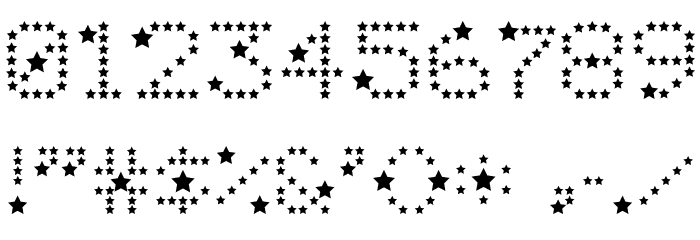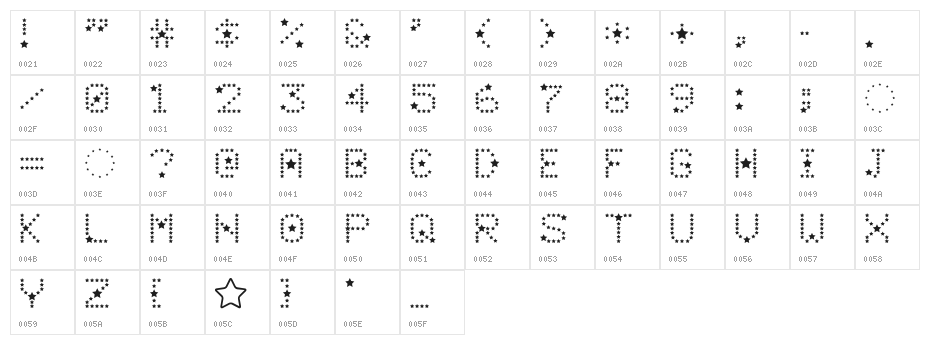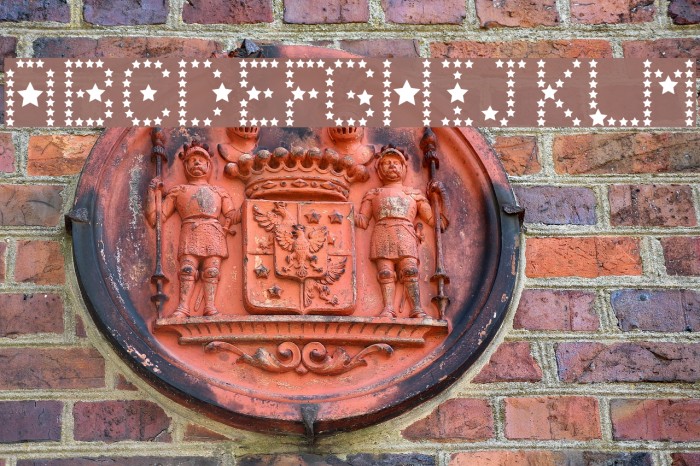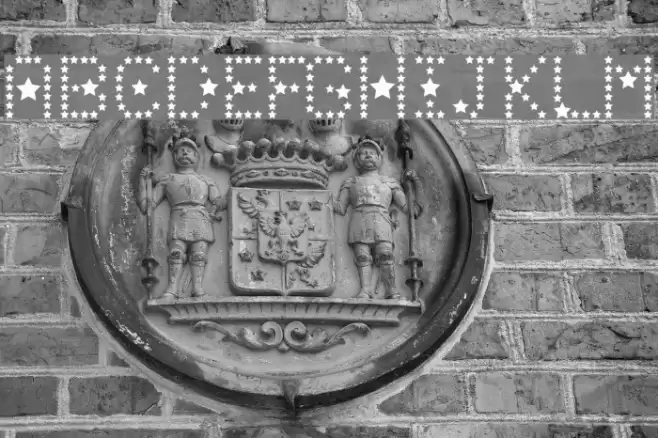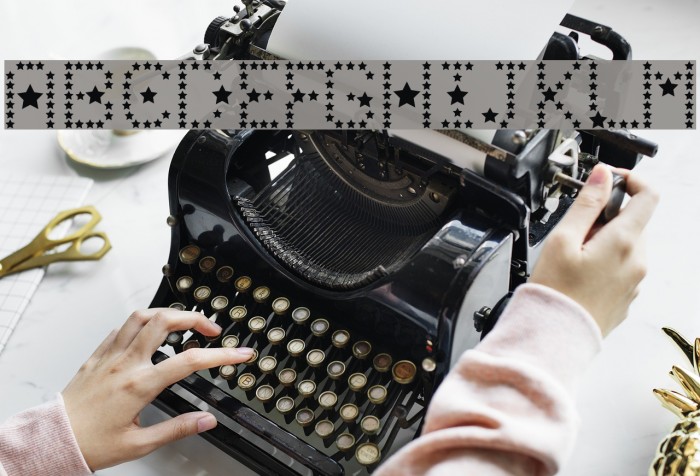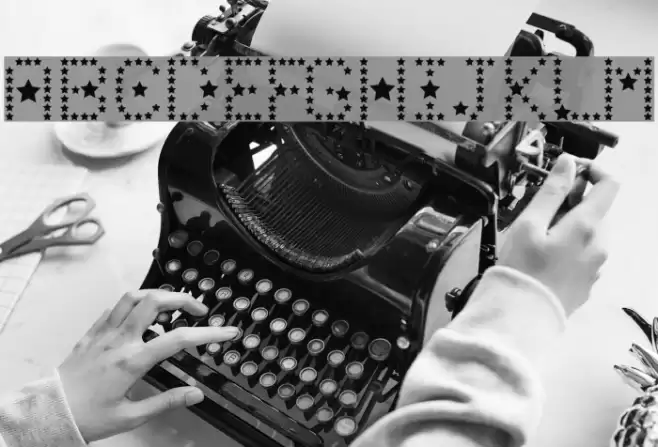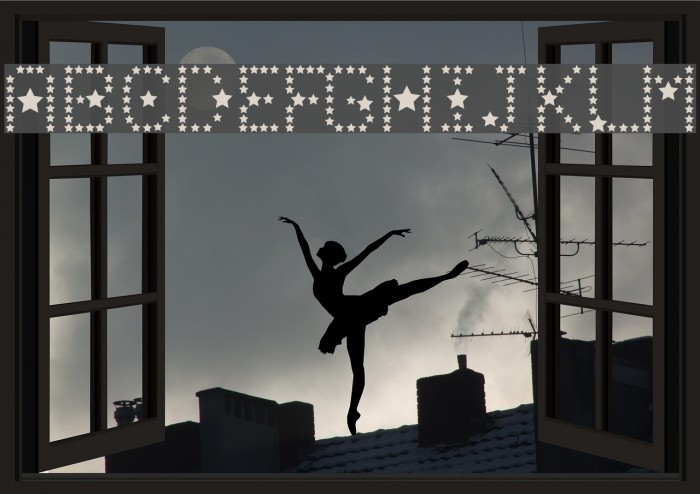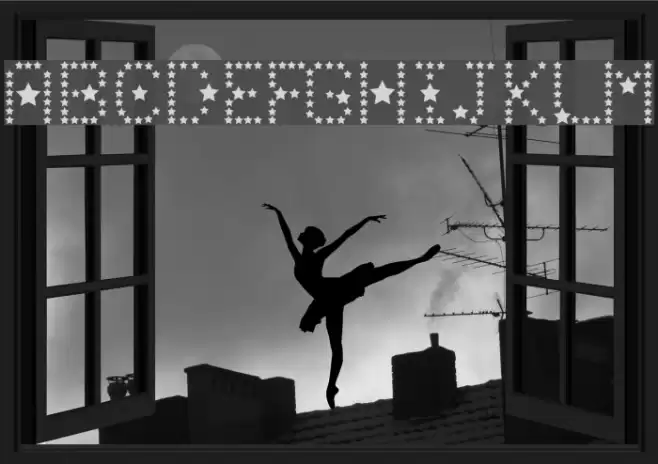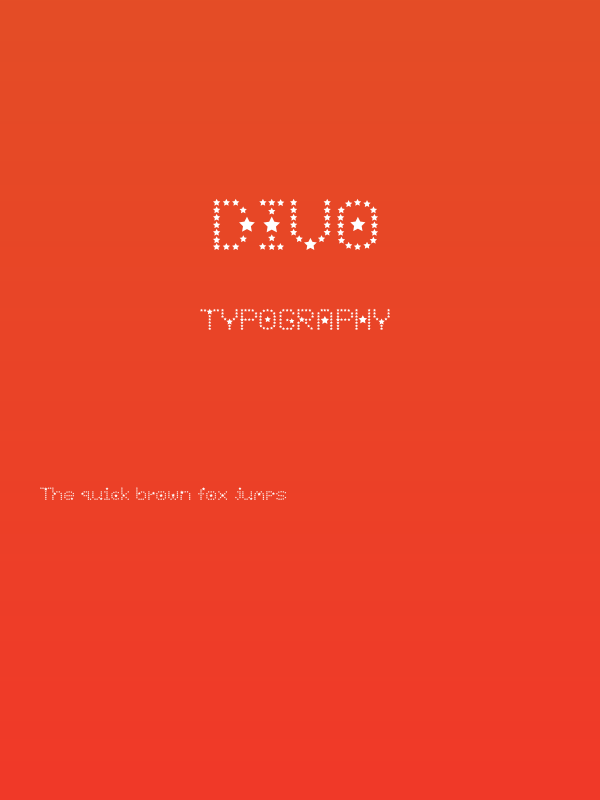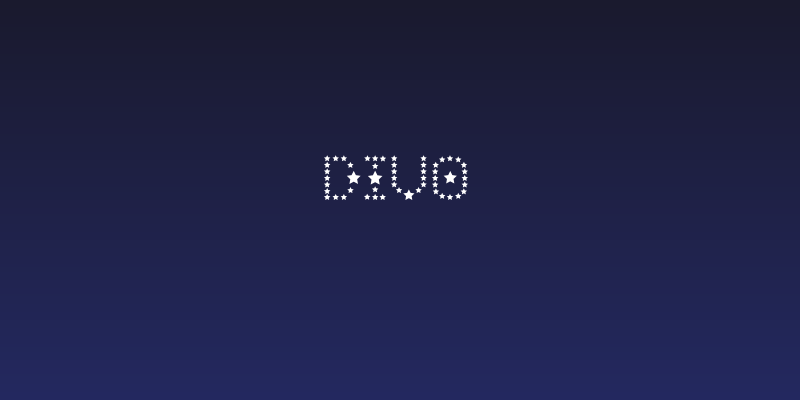
Divo Font
Divo Description
This font is a decorative display typeface composed entirely of star shapes, creating a playful and whimsical appearance. Each character is formed by a series of small stars, giving it a unique and eye-catching texture. The font maintains a consistent pattern across both uppercase and lowercase letters, as well as numbers and special characters. Its design is bold and distinctive, making it suitable for creative and informal projects. The star motif adds a sense of fun and celebration, ideal for festive occasions or themed designs.
| Proposed Projects | Ideal for party invitations, children's event posters, festive banners, and creative branding projects. |